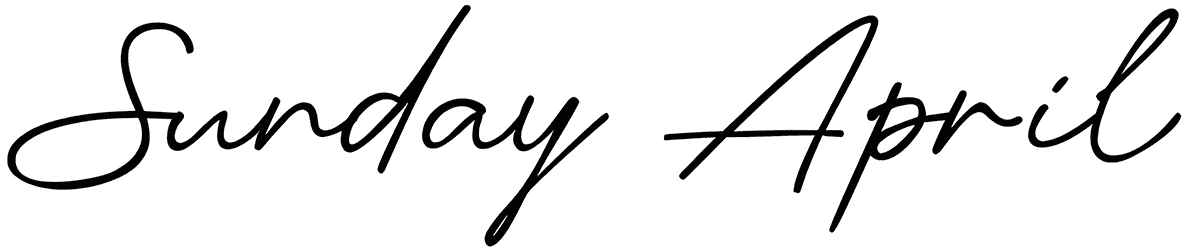
You can’t go wrong with Angelface if you want your project to sound formal yet elegant. Angelface is a calligraphy font that has thin and cursive characters with beautiful ligatures.
Whether it be branding, logotypes, videos, social media posts, or product packaging Angelface fits the bill! It might not seem that readable to non-English users but it’s quite pretty and gives off feminine vibes!
I did not design this font completely, is loosely based on Lariata Typecafe. Traced from the 1993 edition of Novum Press book Schreibschriften/Script Types, compiled by Michael Rau & Rosemarie Kloos-Rau. I did add the punctuation marks for the book only had letters and numbers. Freeware for personal use. If it is for commercial use then this font is donationware through PayPal: .